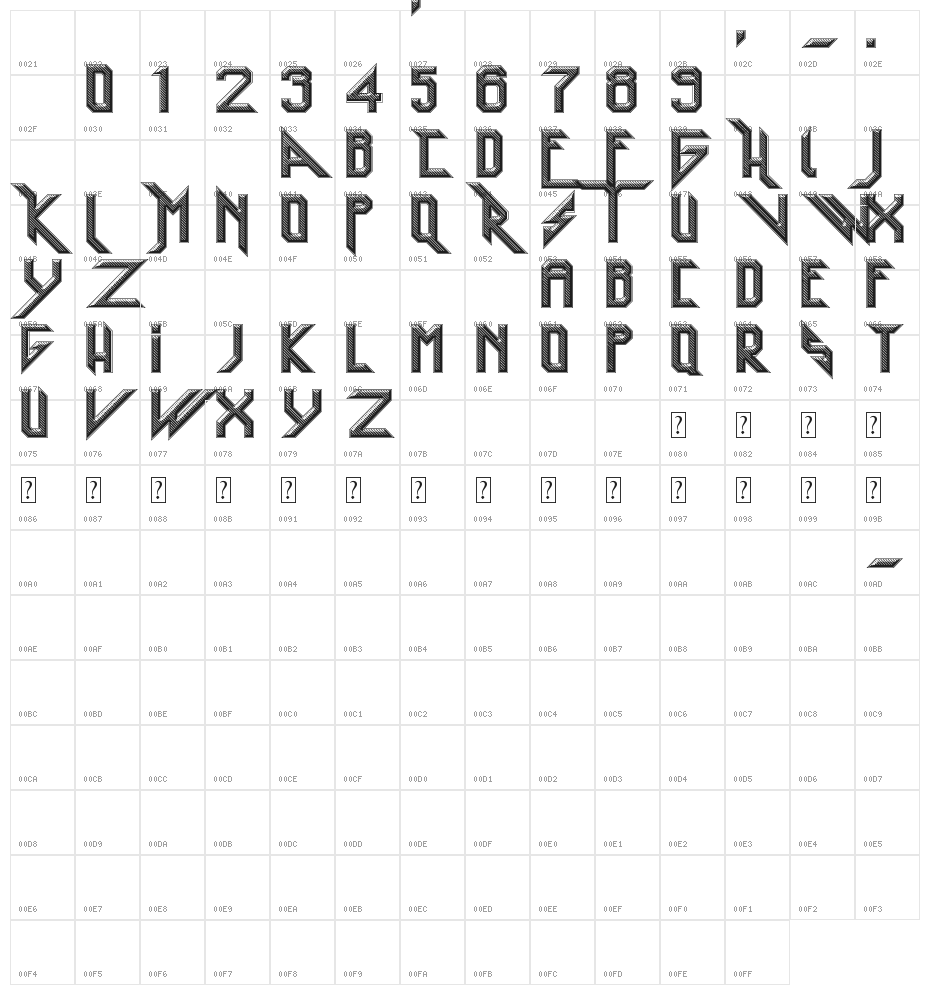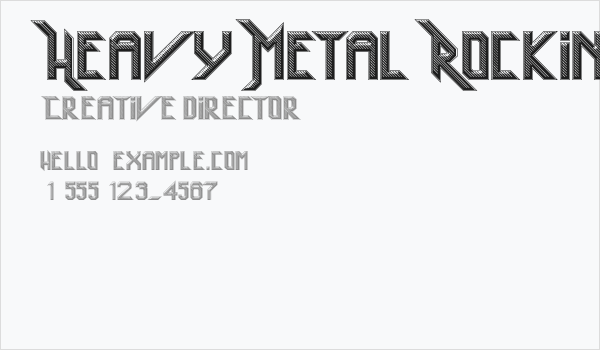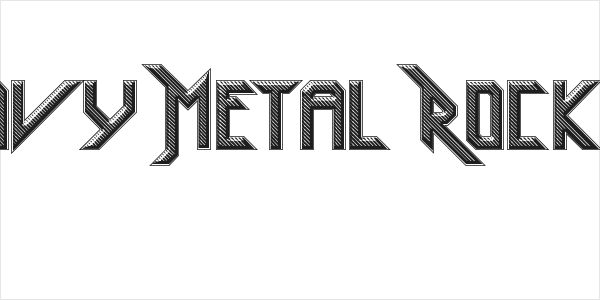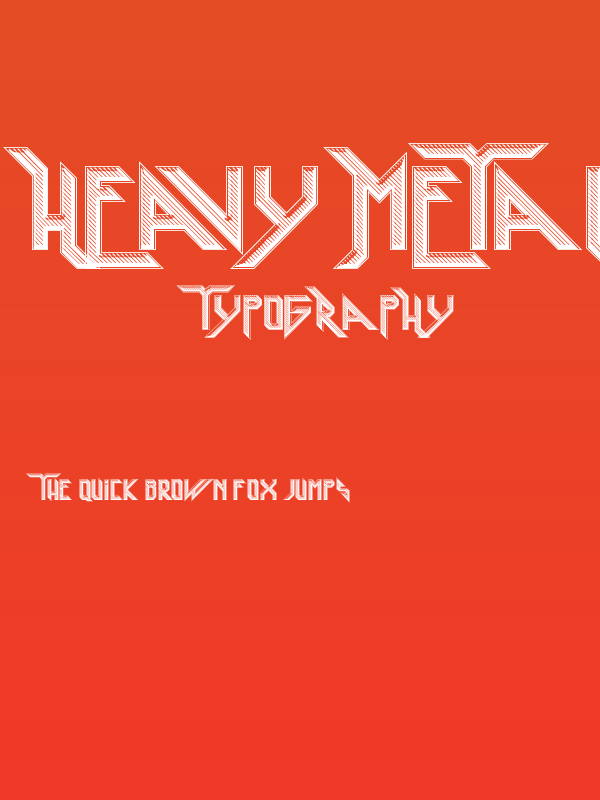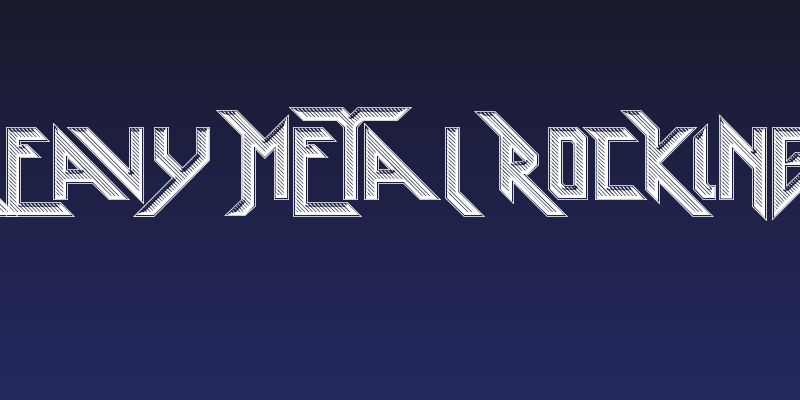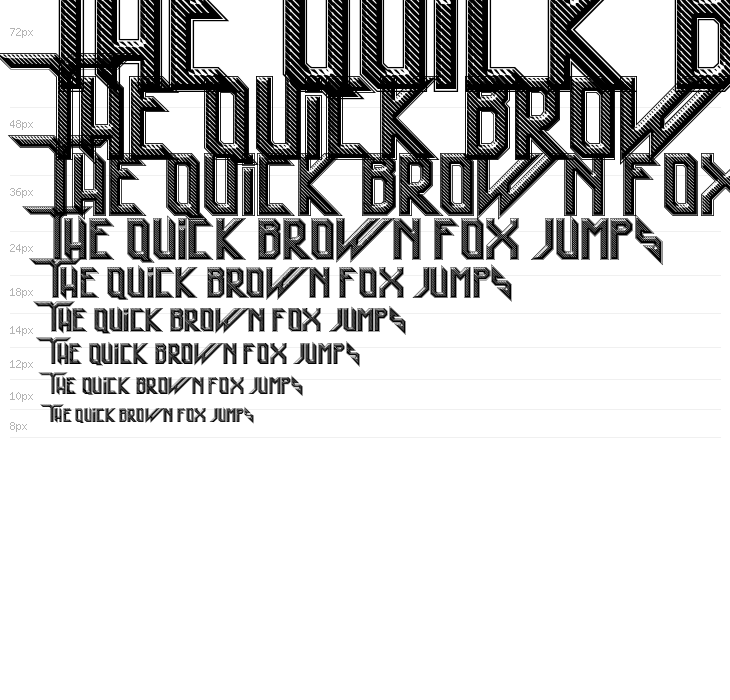
Heavy Metal Rocking Font
Heavy Metal Rocking Description
This font exudes a bold and edgy aesthetic, reminiscent of heavy metal and rock music culture. The characters are designed with sharp angles and a three-dimensional effect, giving them a dynamic and powerful appearance. Each letter is filled with diagonal lines that add texture and depth, enhancing the overall aggressive and rebellious vibe. The uppercase and lowercase letters maintain a consistent style, with the numbers and special characters following suit. This font is perfect for projects that aim to capture a sense of intensity and energy.
| Overall Style | Modern, Decorative |
| Use Case | Logos, Headlines, Posters |
| Proposed Projects | Ideal for music album covers, band logos, event posters, and merchandise related to rock or metal genres. |